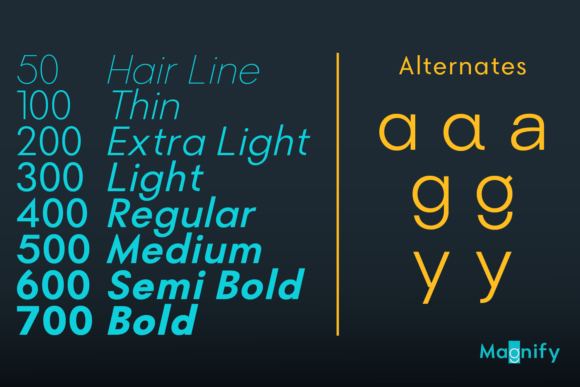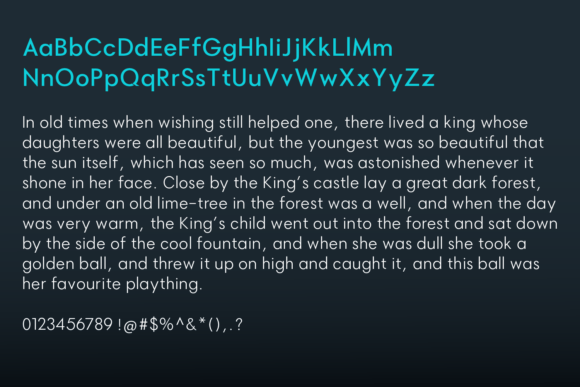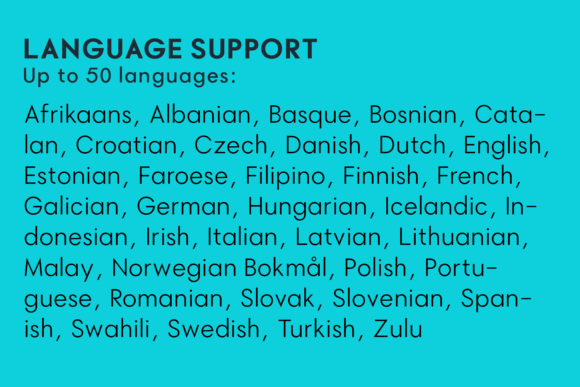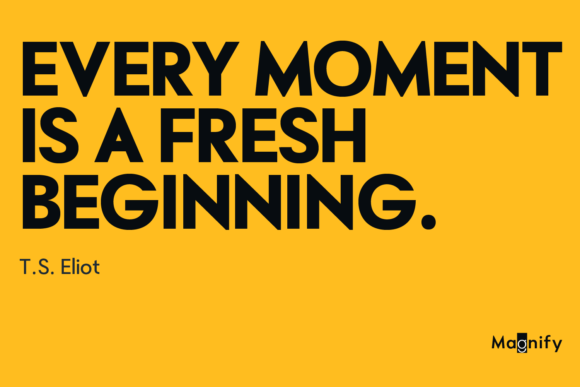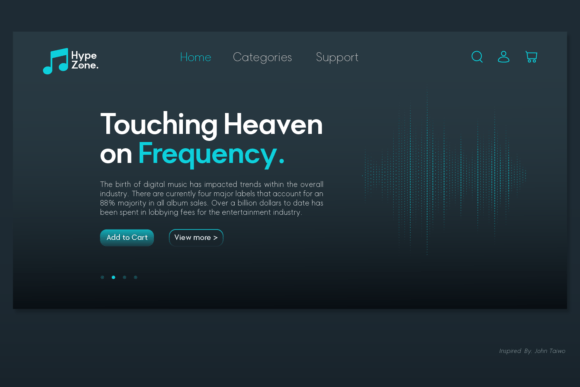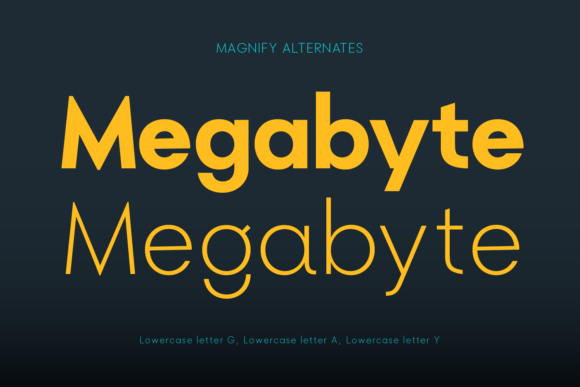
Introduction to Magnify Font Font
About This Font Family, Geometric sans serif is one of my favorite fonts because it’s so, simple, clean, and modern, and for a long time I’ve been dreaming of making this type, inspired by many media and especially “Futura, 1927” (by Early Bauer) I created “Magnify” Geometric sans.
The structure and element shape of Magnify is not really perfectly circular, but slightly oval it can be seen in the uppercase letters O, G, C, Q and in the lowercase letters o, a, c, e Magnify has 8 weights – from Hairline to Bold and Matching Oblique.